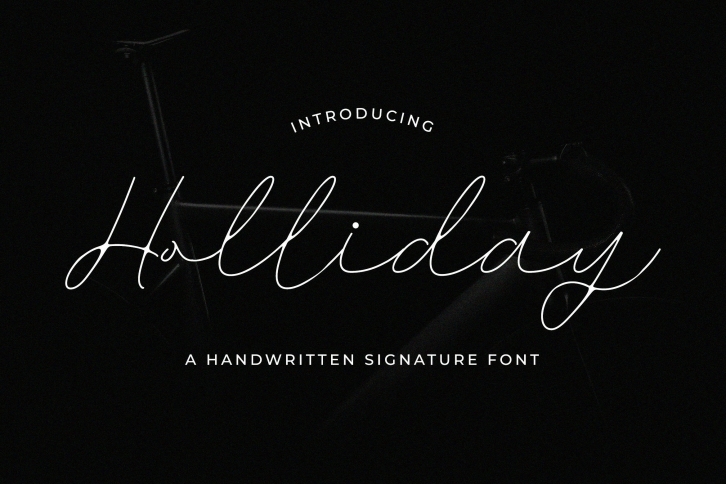
Holliday is a great font that was designed by JDStudio. Imagine the amount of combinations you can create using this font! The archive is 13.34 MB and it was released on October 12, 2022. Holliday looks beautiful on wedding invitations, greeting cards, logos, posters, labels, t-shirt designs, logos, business cards and is perfect for use in ink or watercolor works, fashion, magazines, packaging and food menus, children's books and more!